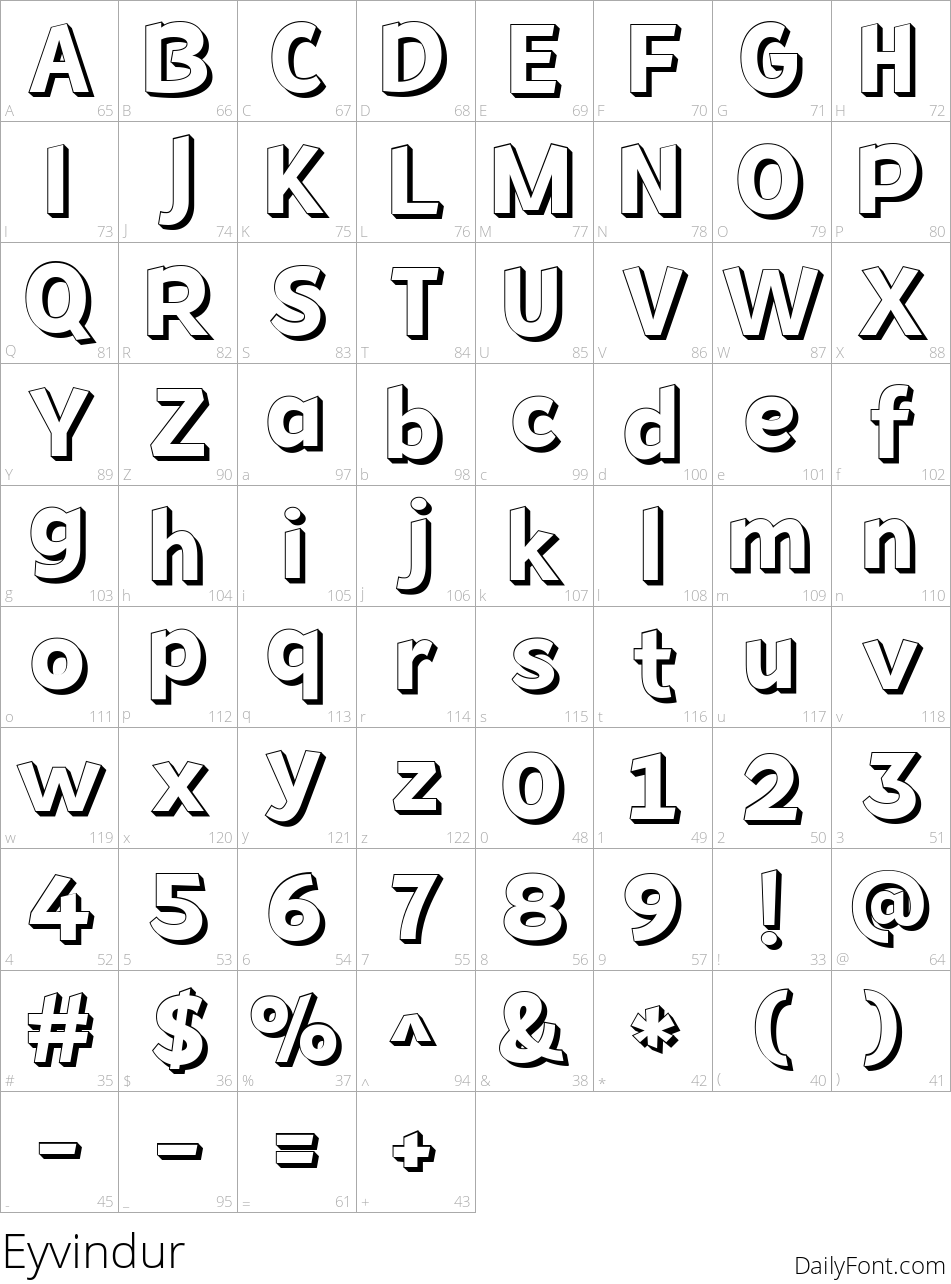
Eyvindur
Eyvindur is a captivating 3D display typeface that stands out in any design project. This super stylish font is specifically crafted to grab attention, making it ideal for bold headlines, logo designs, posters, and various other creative endeavors. With its unique dimensionality, Eyvindur adds depth and character, making your text pop in both digital and print formats.
Whether you're designing for a business, an event, or personal projects, Eyvindur is versatile enough to suit various themes and aesthetics. Its bold, attention-grabbing appearance ensures that your message will not only be seen but also remembered. Perfect for those looking to make a striking visual statement, Eyvindur combines modern aesthetics with a timeless charm, making it a must-have for any designer's toolkit.
Elevate your design work with Eyvindur, the 3D typeface that bridges the gap between playfulness and professionalism. Discover how this extraordinary font can enliven your projects and engage your audience like never before.